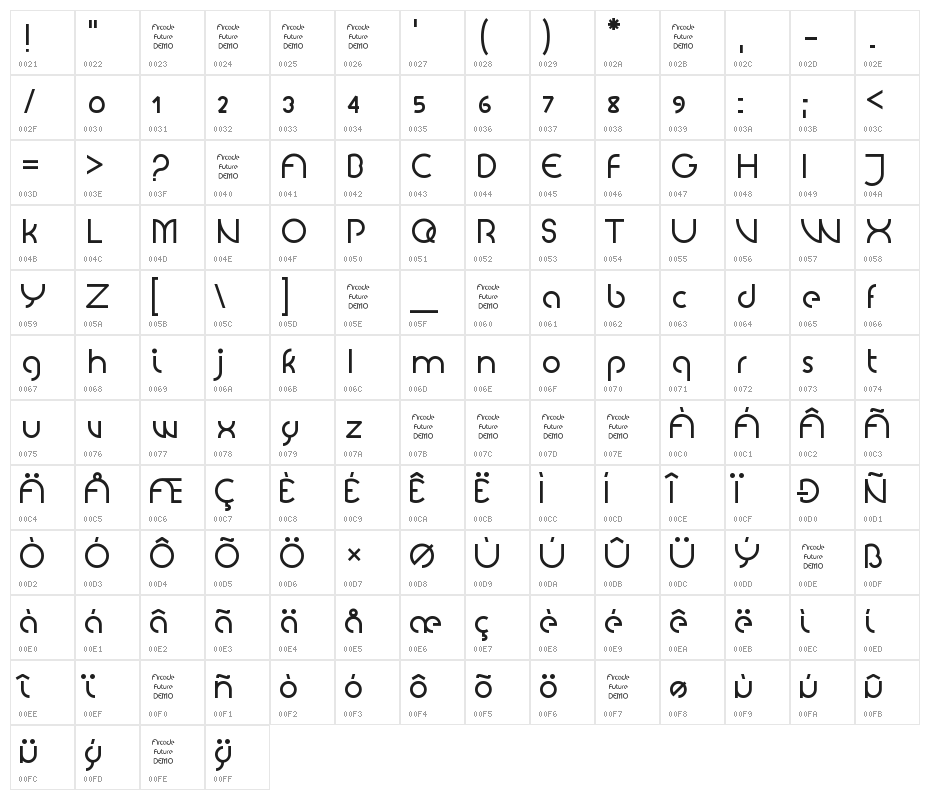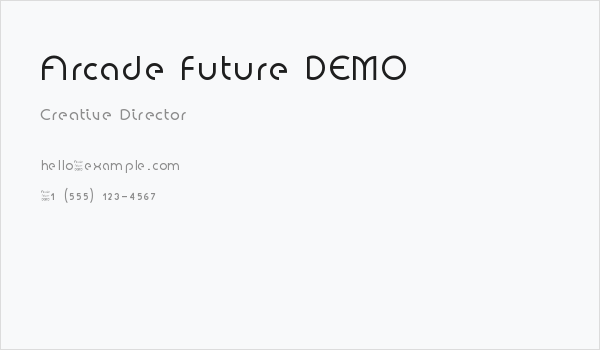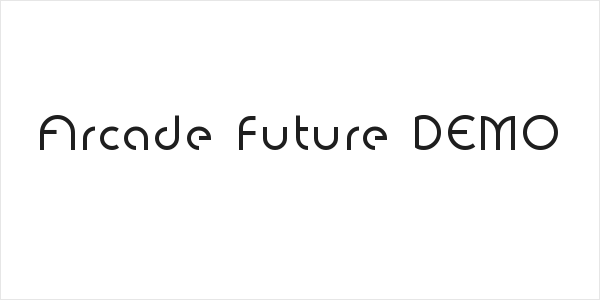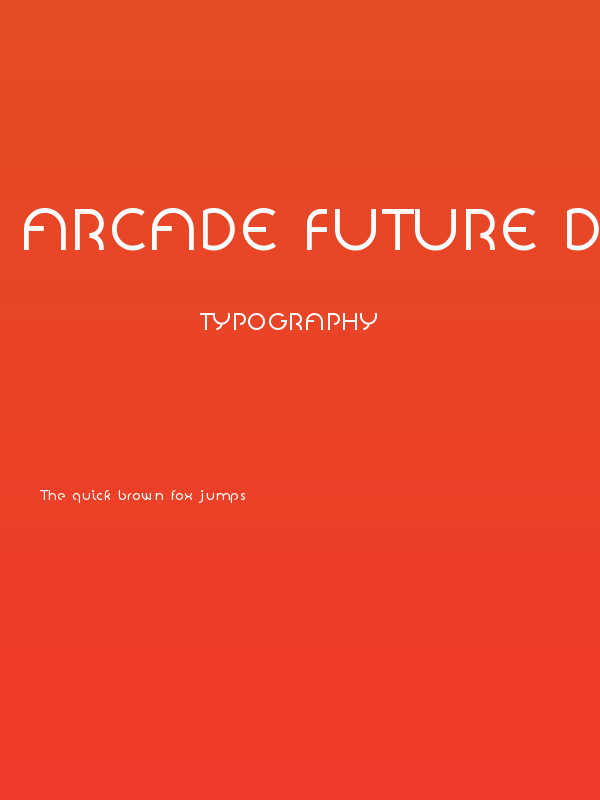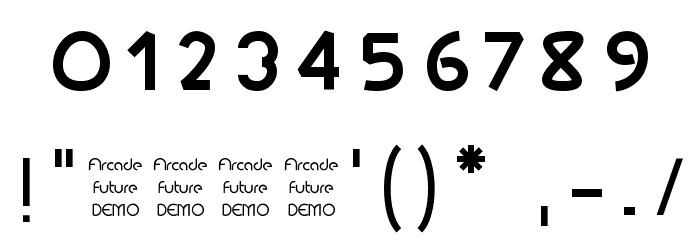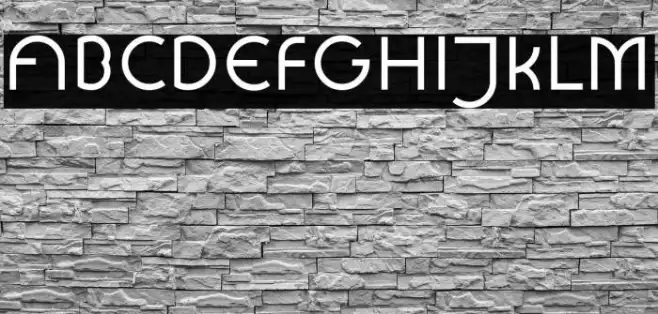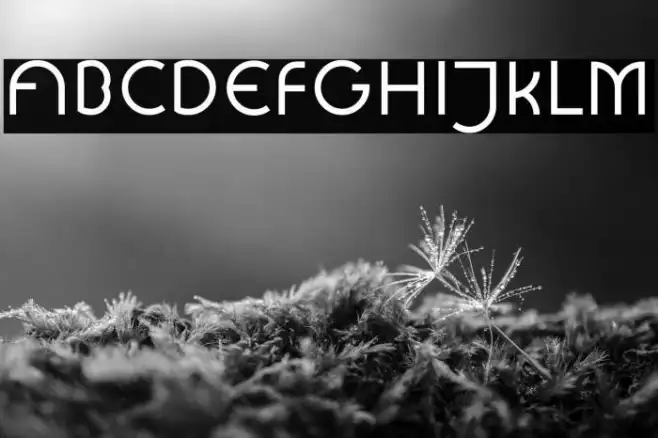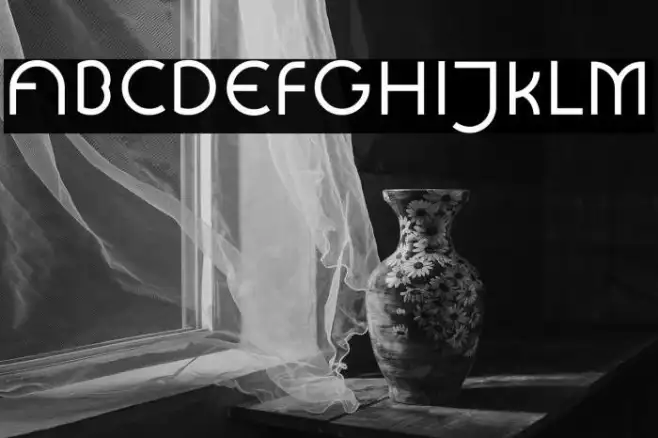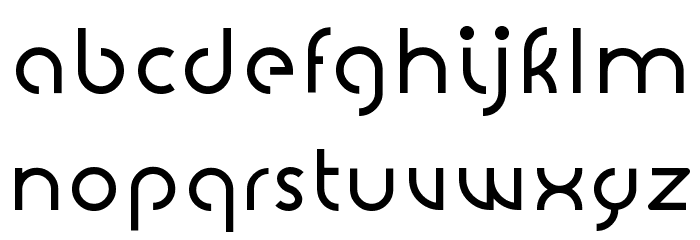
Arcade Future DEMO Font
Arcade Future DEMO Description
This font features a futuristic and geometric design, characterized by clean lines and rounded edges. The uppercase letters exhibit a uniform height and width, creating a balanced and cohesive appearance. The lowercase letters maintain a similar style, with a slight variation in height to enhance readability. The numerals are bold and distinct, ensuring clarity in numerical data. Special characters are designed to complement the overall aesthetic, maintaining the modern and sleek look. This font is ideal for projects that require a contemporary and innovative feel, such as technology-related branding or digital interfaces.